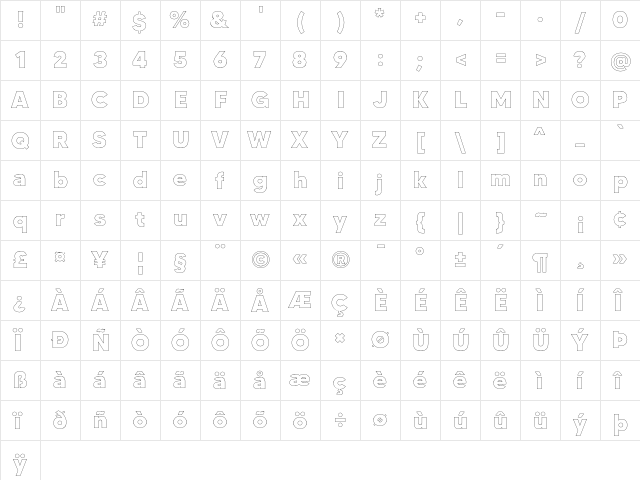
MADE TOMMY Outline ExtraBold
Design Context for MADE TOMMY Outline Typeface
MADE TOMMY Outline brings ornamental detail and strong personality to headlines and identities, where visual impact matters more than quiet functionality. Its bold stroke weight gives it real presence on the page.
Font Pairing: Pair with a clean neutral sans-serif for body copy to let MADE TOMMY Outline's character lead without overwhelming the composition.
Pro Tip: Treat MADE TOMMY Outline as the centrepiece of your typographic hierarchy. One strong heading set in a decorative face can carry an entire layout.